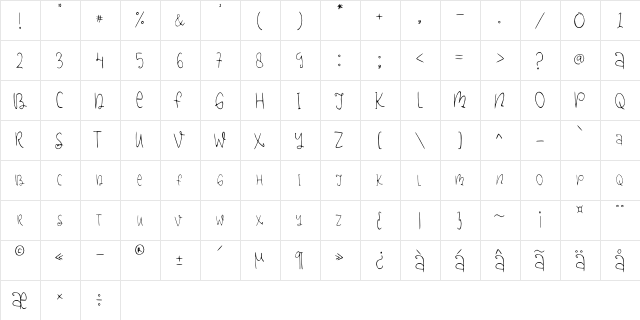
Bird Symphony Regular
| Designer | Arief Tri Sulistiyono |
Design Context for Bird Symphony Typeface
Bird Symphony is a composed and adaptable typeface that performs quietly and consistently across a wide range of design contexts.